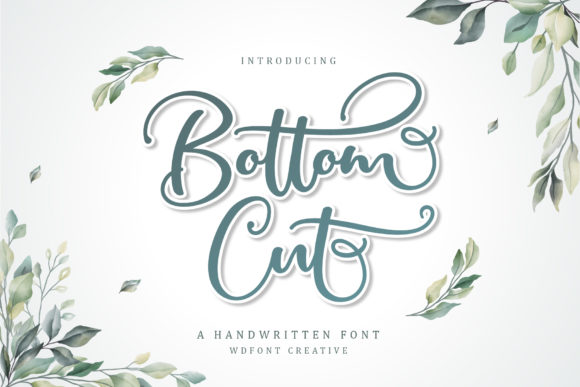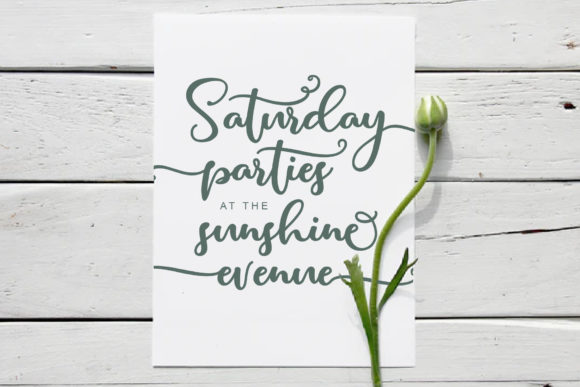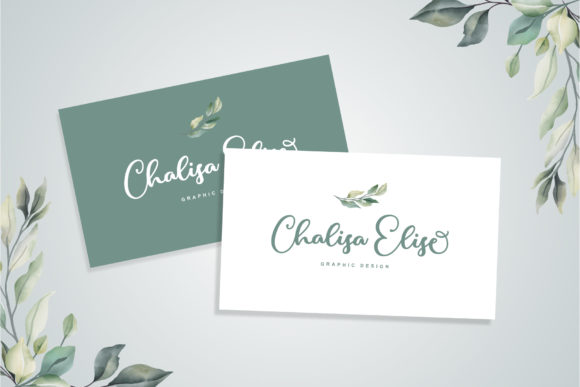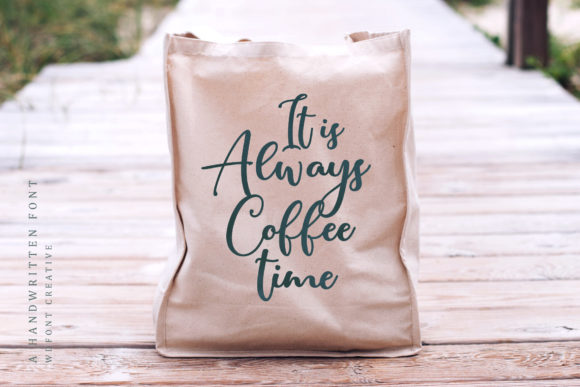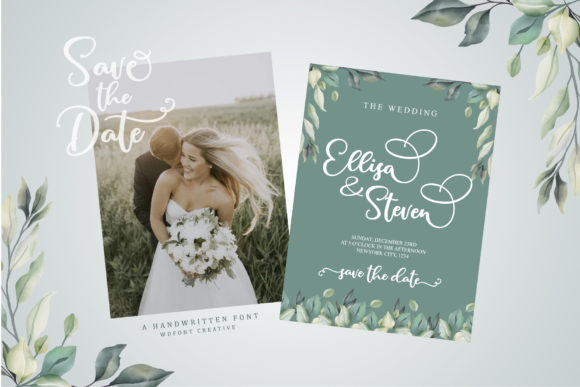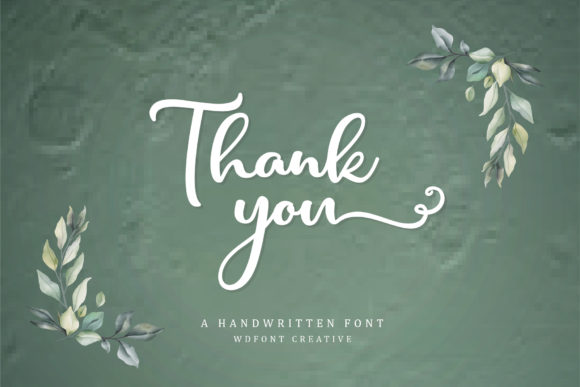
Bottom Cut Font
About Bottom Cut Font
Bottom Cut is a new, fresh, funny, and cute calligraphy font with hearts that can be connected. It’s great for greeting cards, branding materials, business cards, quotes, posters, and more!